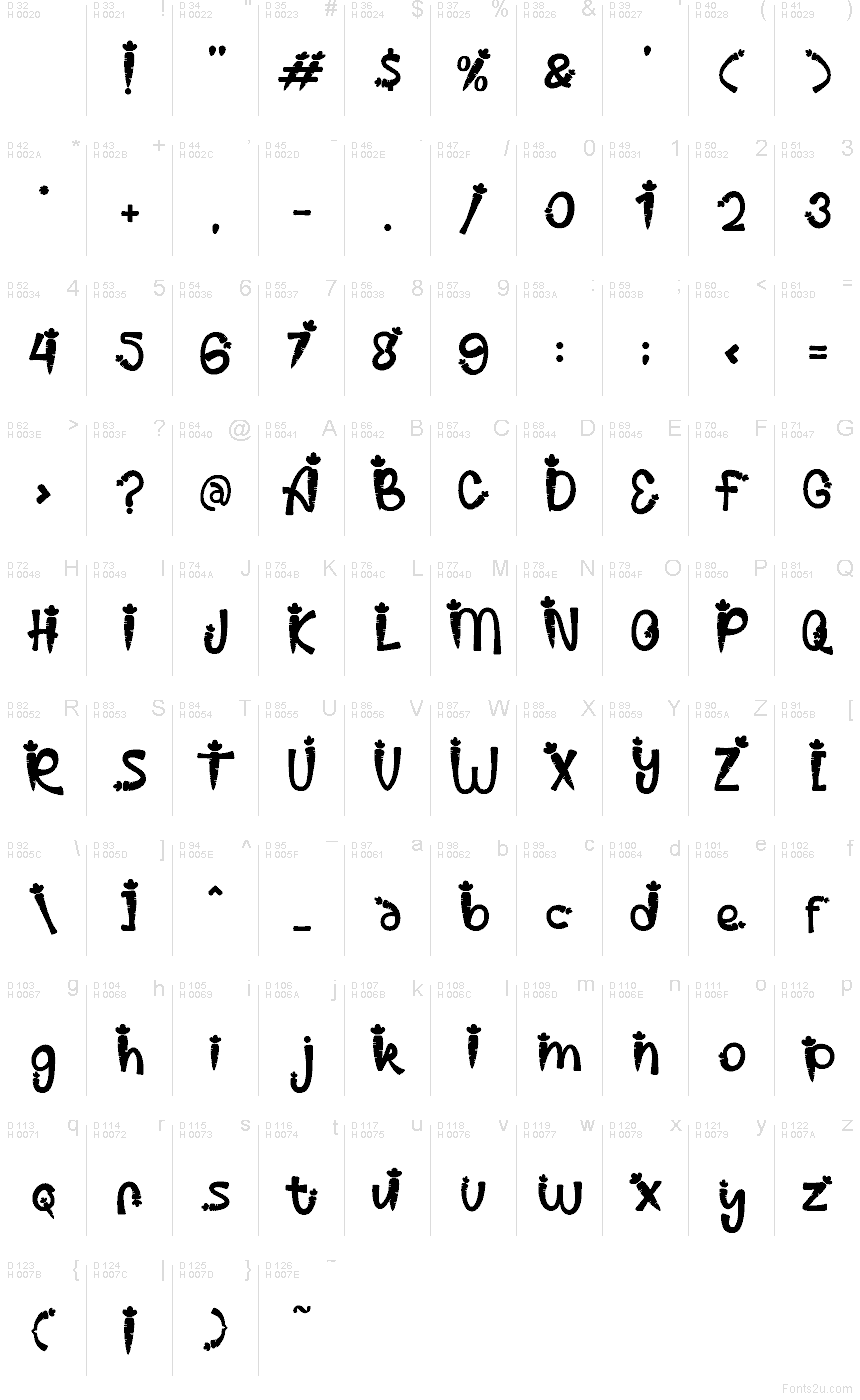
Palm Sunday Carrot 2
Palm Sunday Carrot 2 font by Putracetol Studio is a free Easter display font with hand-drawn letterforms shaped by small sprout-like tops, tapered ends, and a slightly uneven sketchy rhythm. The lettering feels more decorative than formal, with a few forms echoing carrot or plant motifs that keep the Easter theme clear without becoming crowded.
Palm Sunday Carrot 2 works well for Easter party invitations, greeting cards, seasonal banners, kids craft labels, and holiday packaging. This free font fits those uses because the themed details read as decorative accents, making short phrases, menu titles, and event signage feel festive and personal.